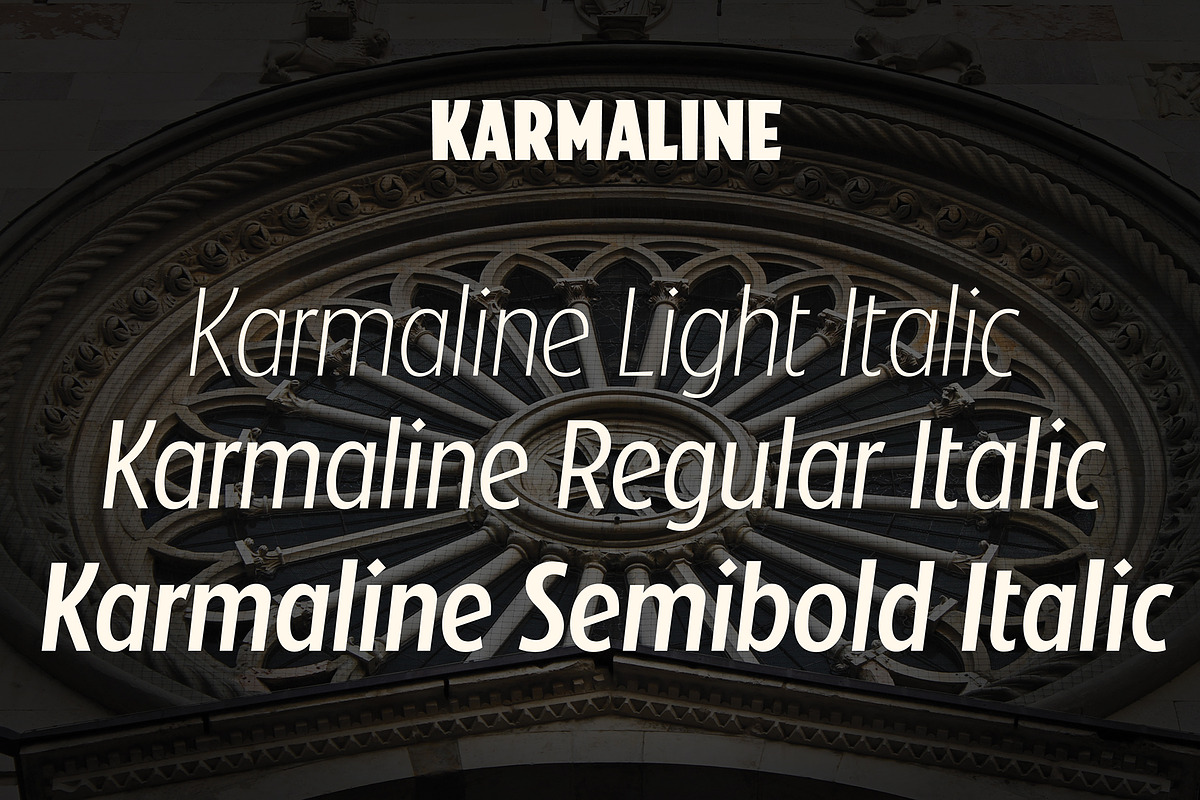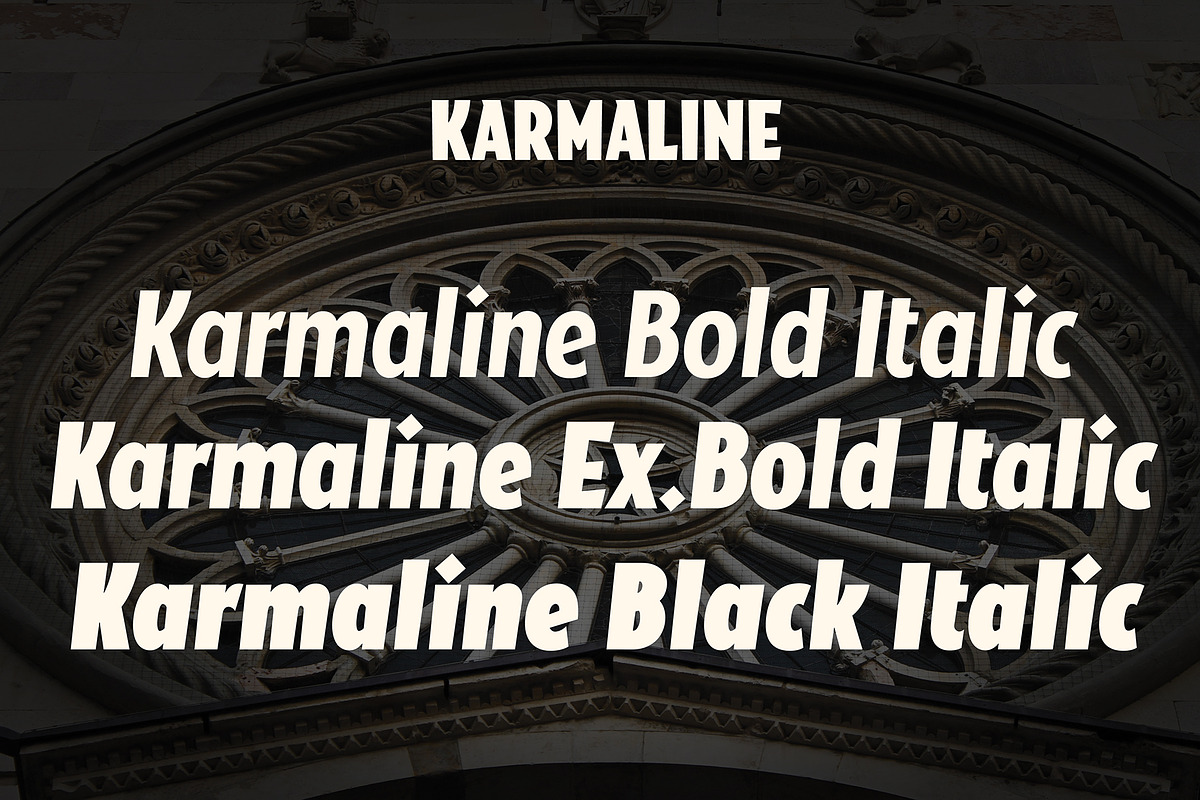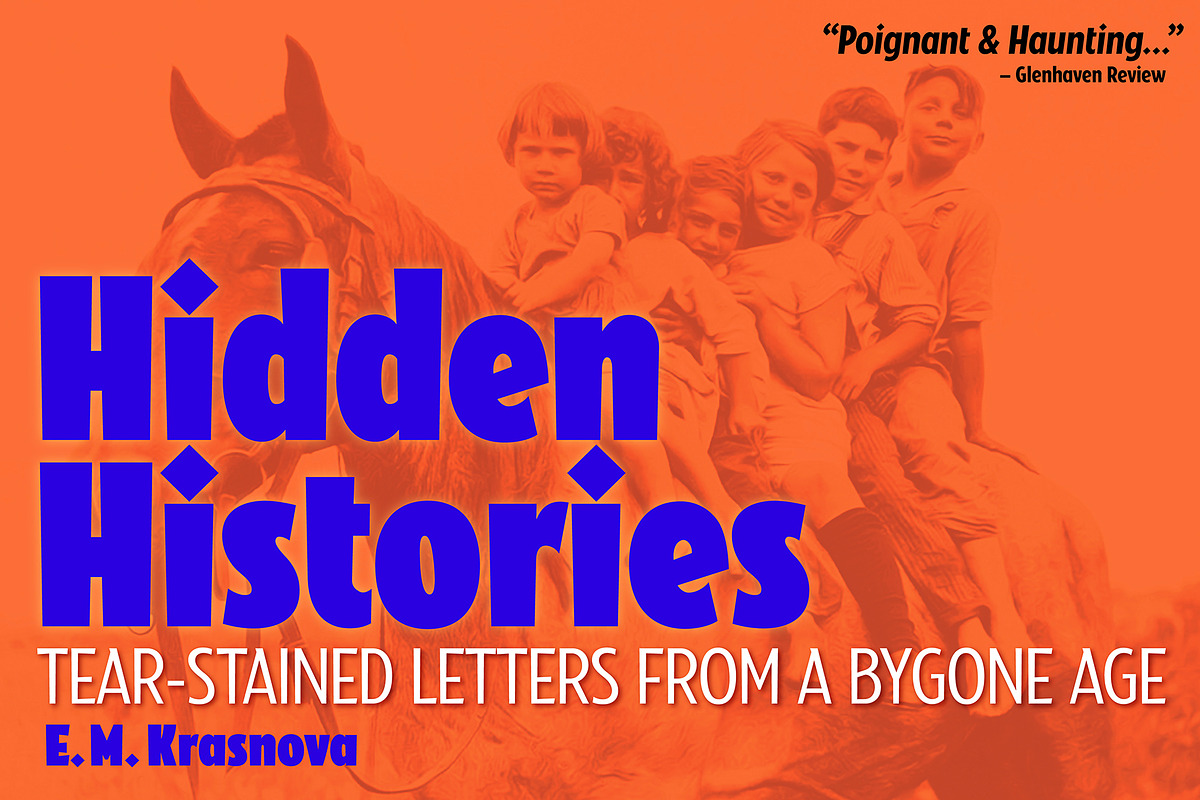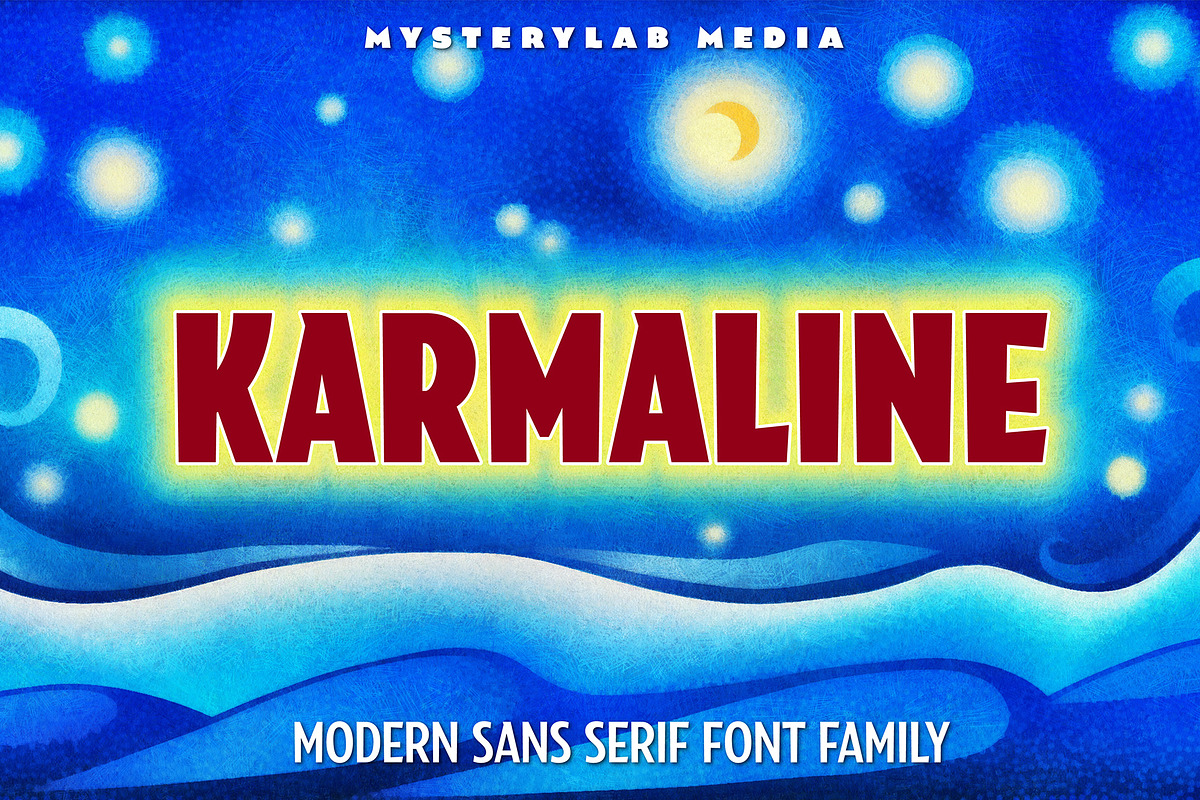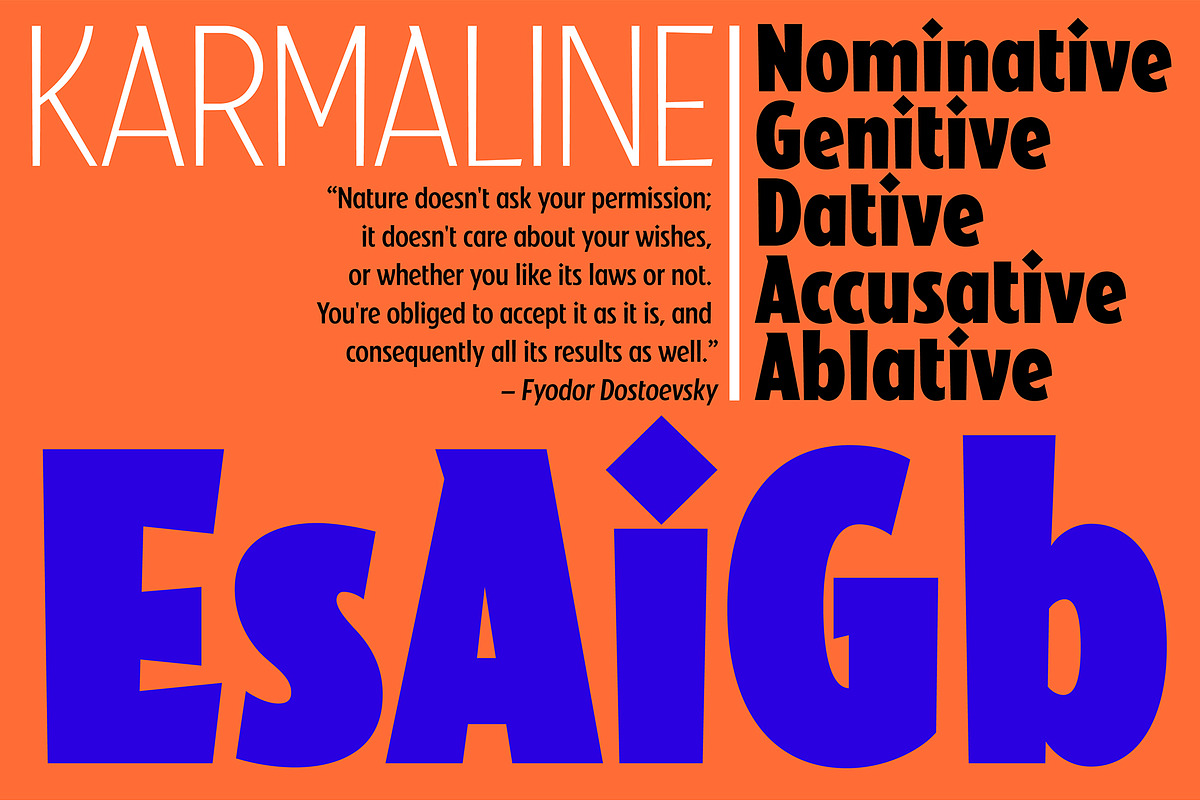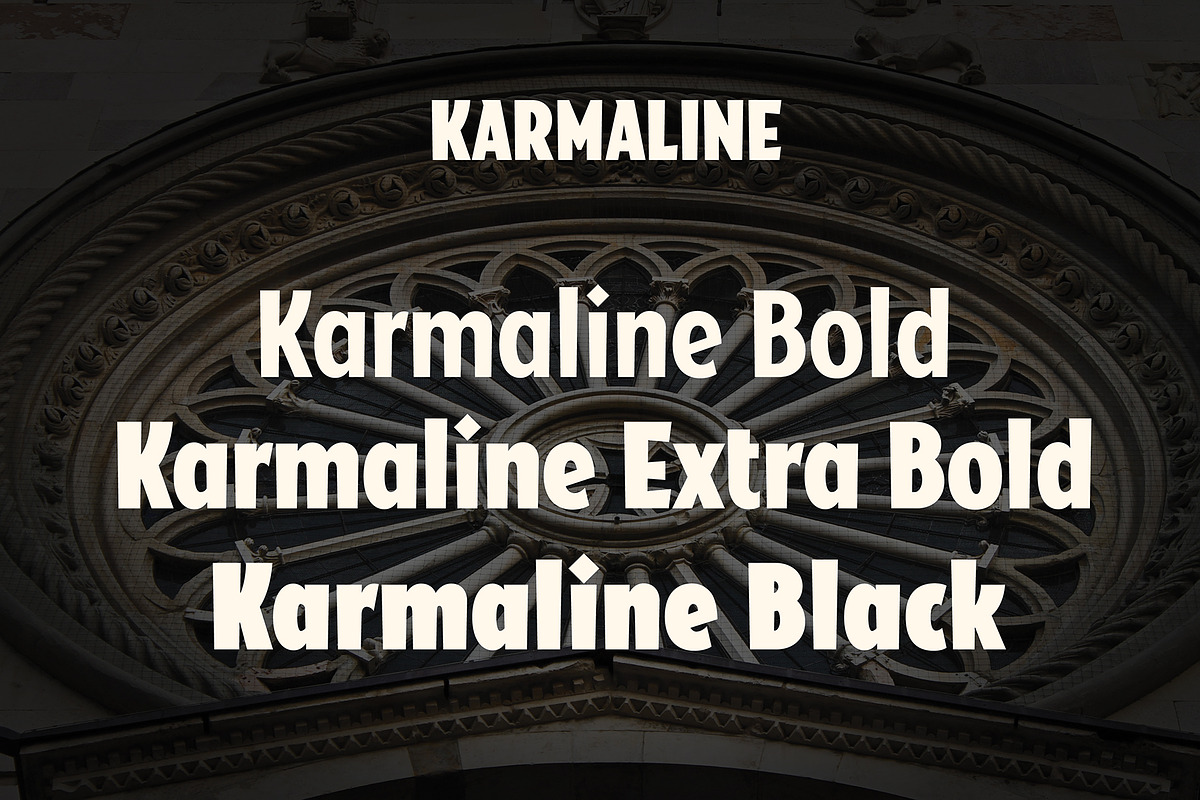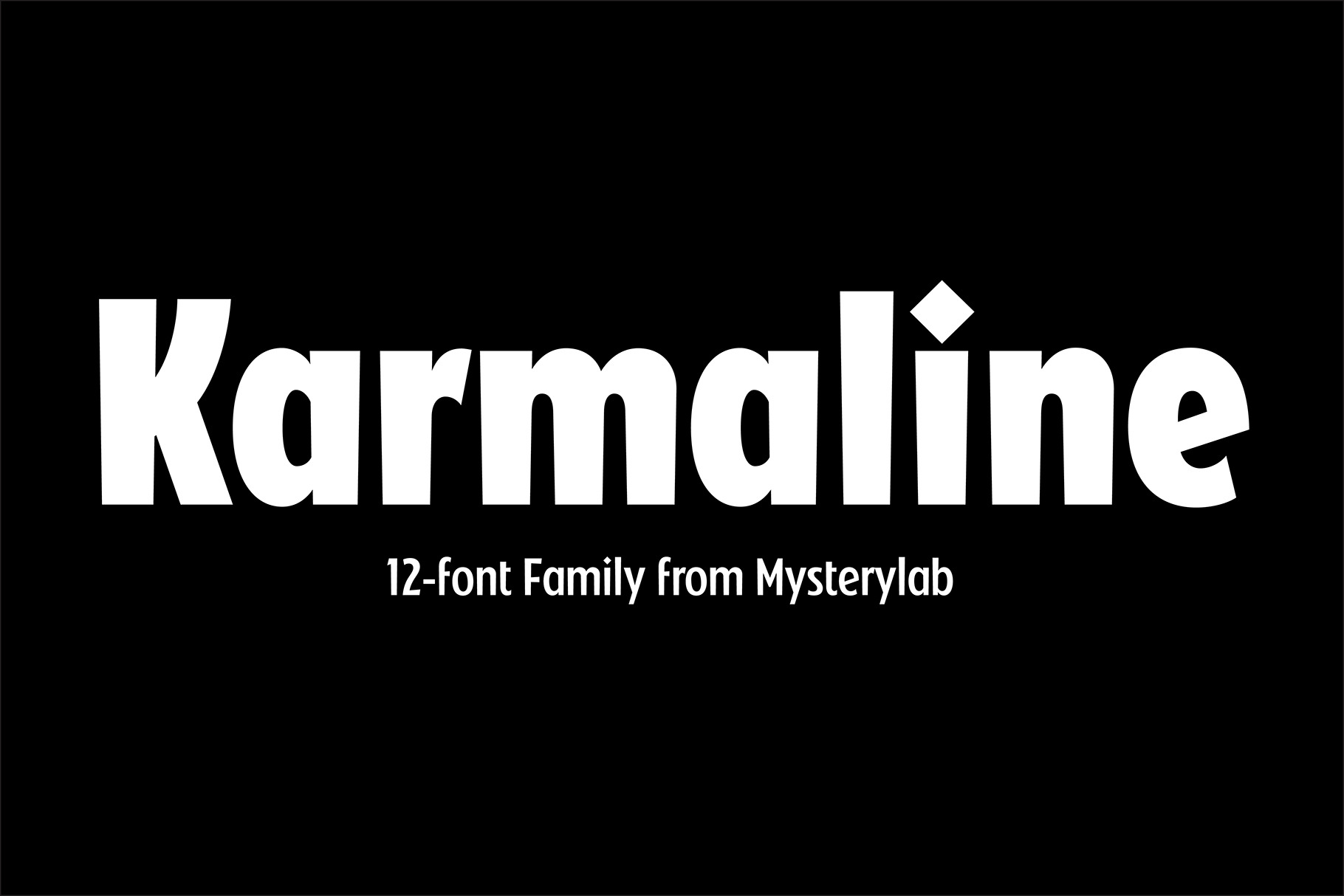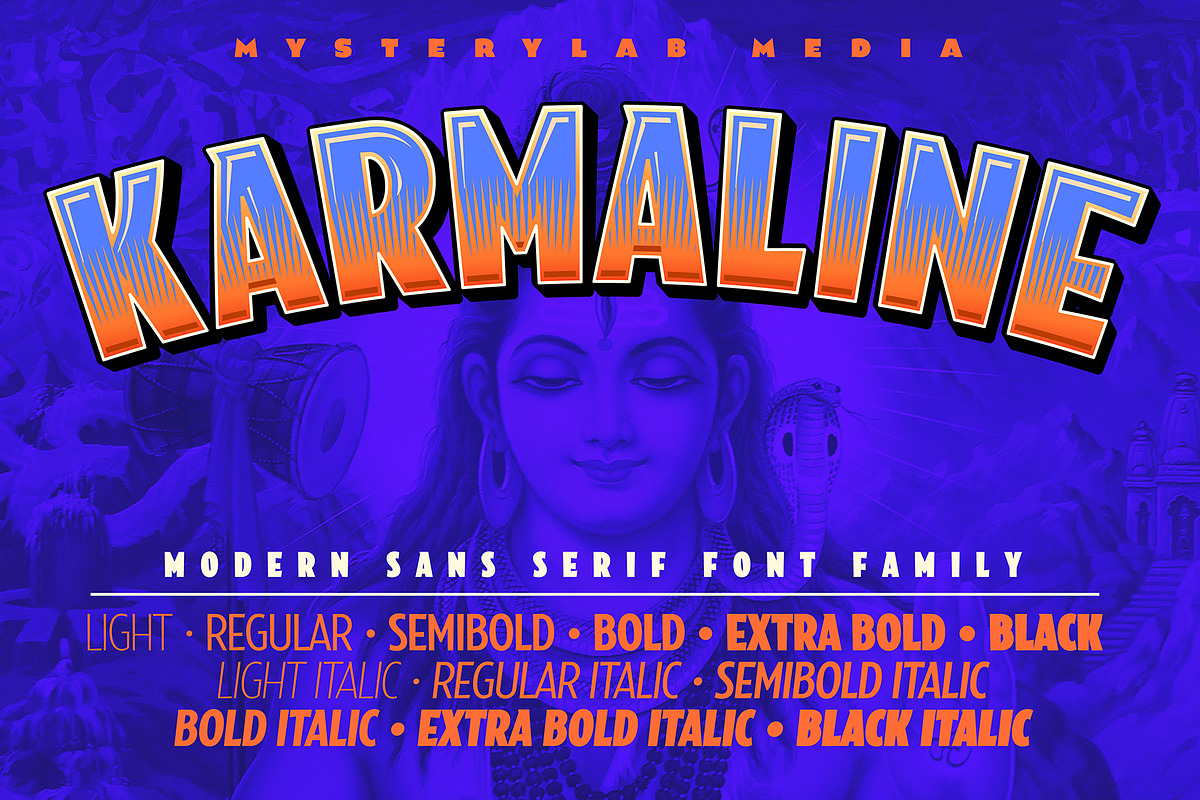
Karmaline Sans Serif Font Family
Karmaline is a six-weight sans serif font family with a unique and expressive design. This font has some intriguing special features such as subtly tapered topheavy vertical strokes and selected wedge-shaped horizontal strokes. It is evocative of designs from Switzerland, Germany, and the Netherlands in the period spanning 1900 – 1930, but with thoroughly modern features like high legibility at small sizes, even inter-character weight and flow, and a high x-height.
You'll find Karmaline's semi-condensed width to be useful for both strong headlines and for comfortable copyfitting in narrow column widths. This font also works very well when adding layered shadow and highlight effects, and is a great choice for logos.